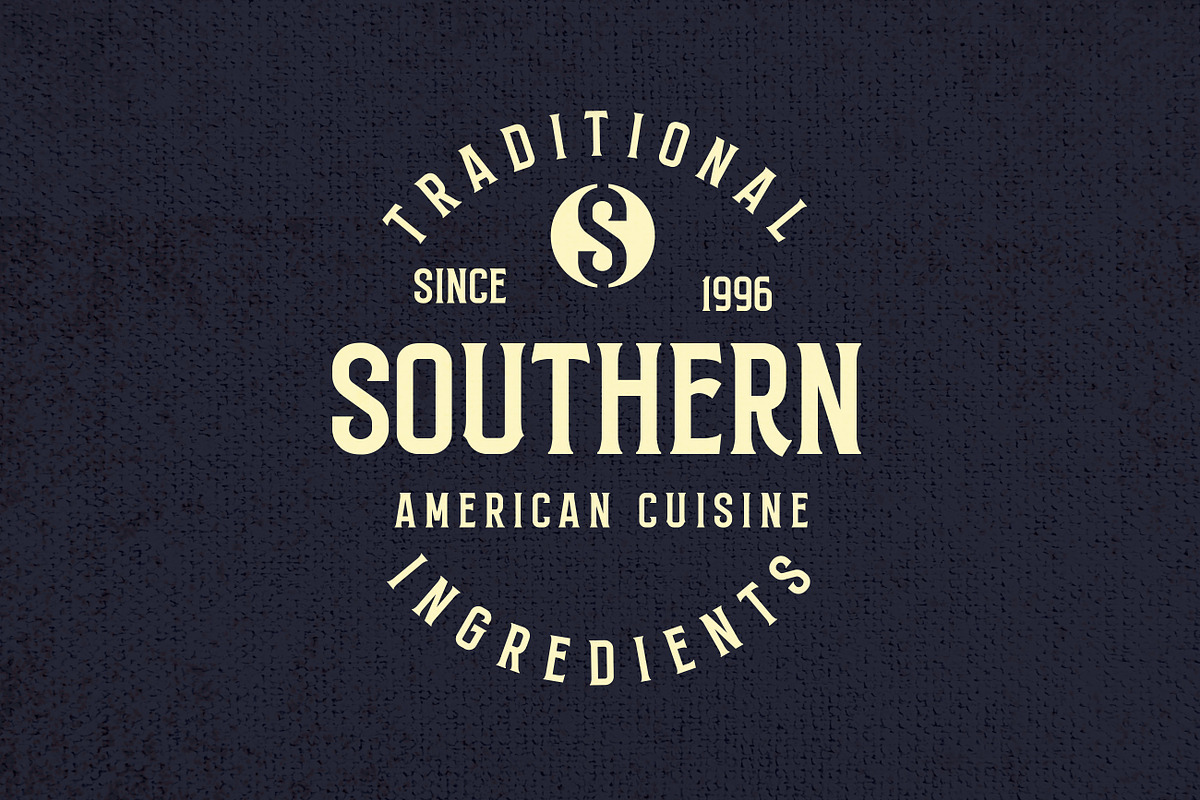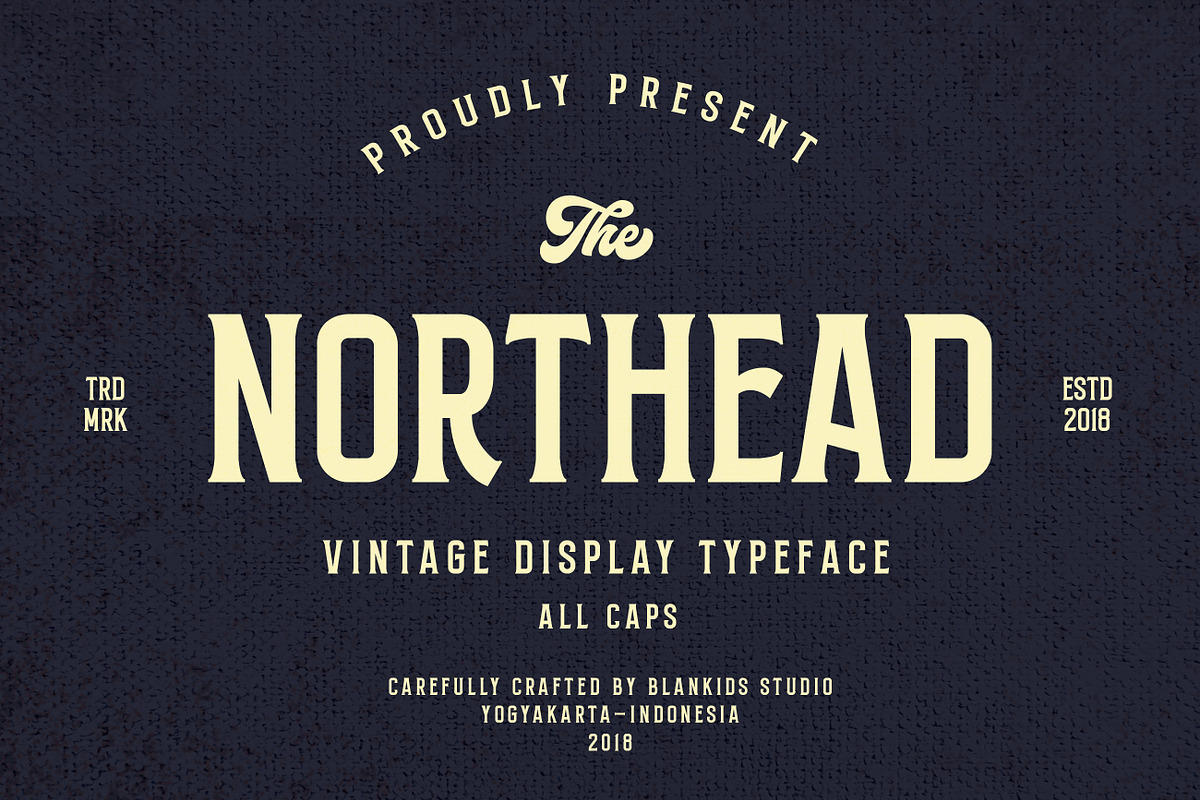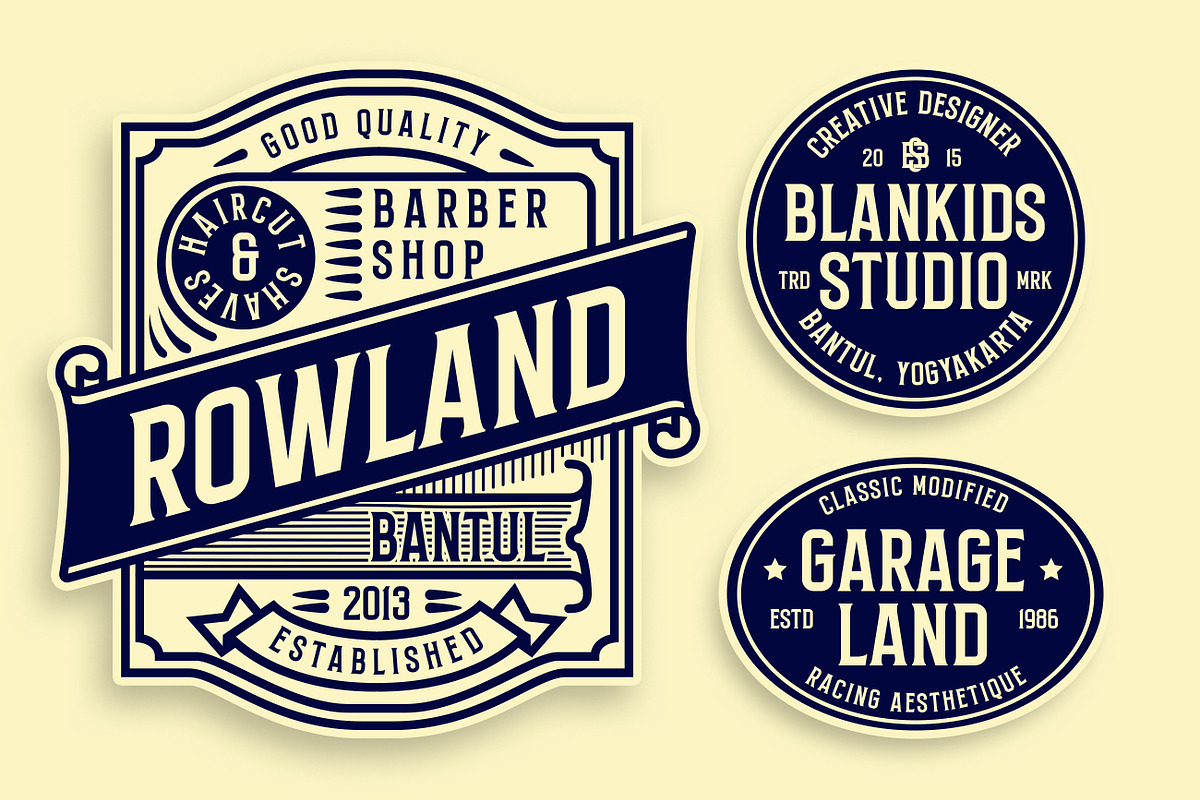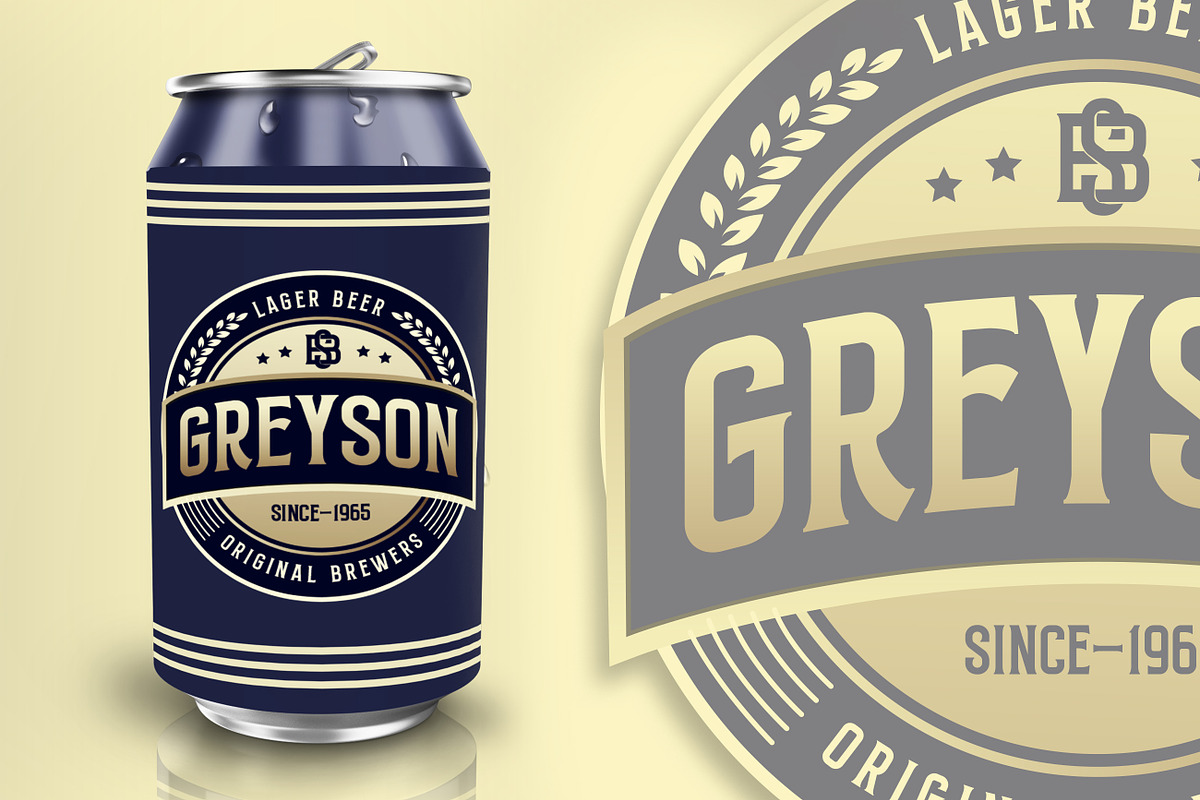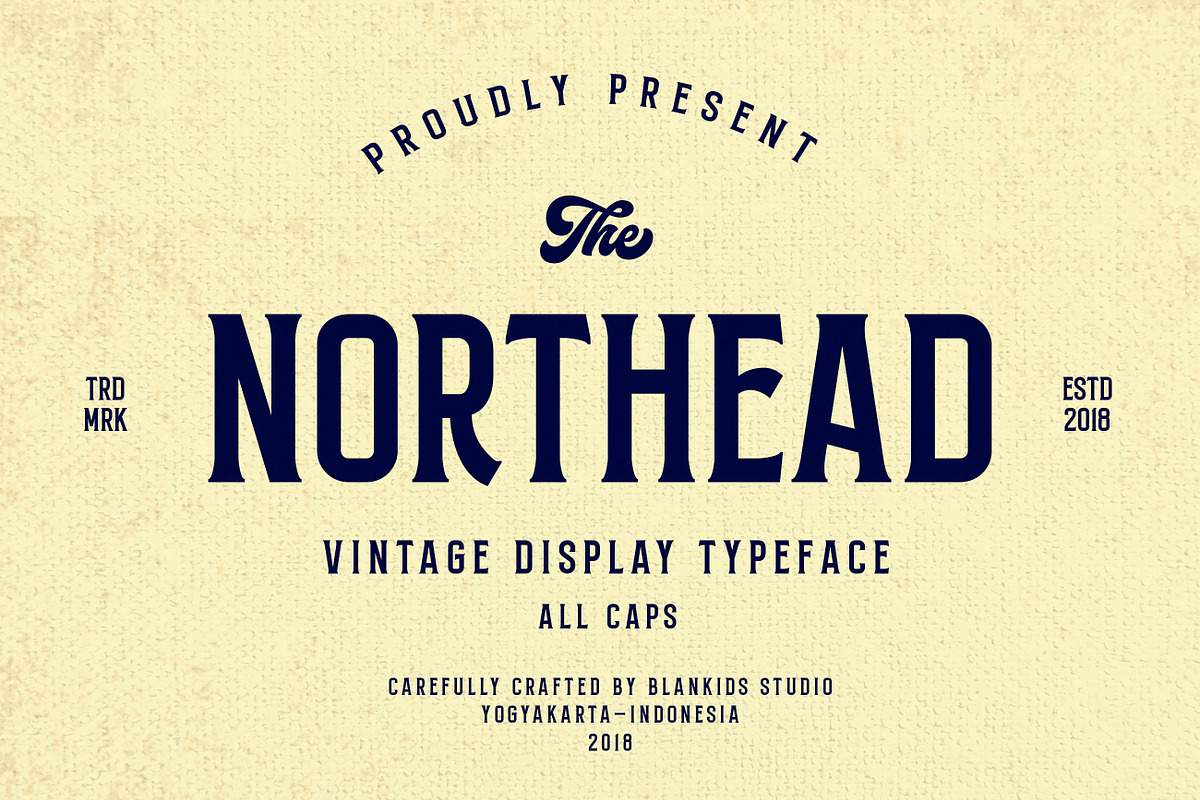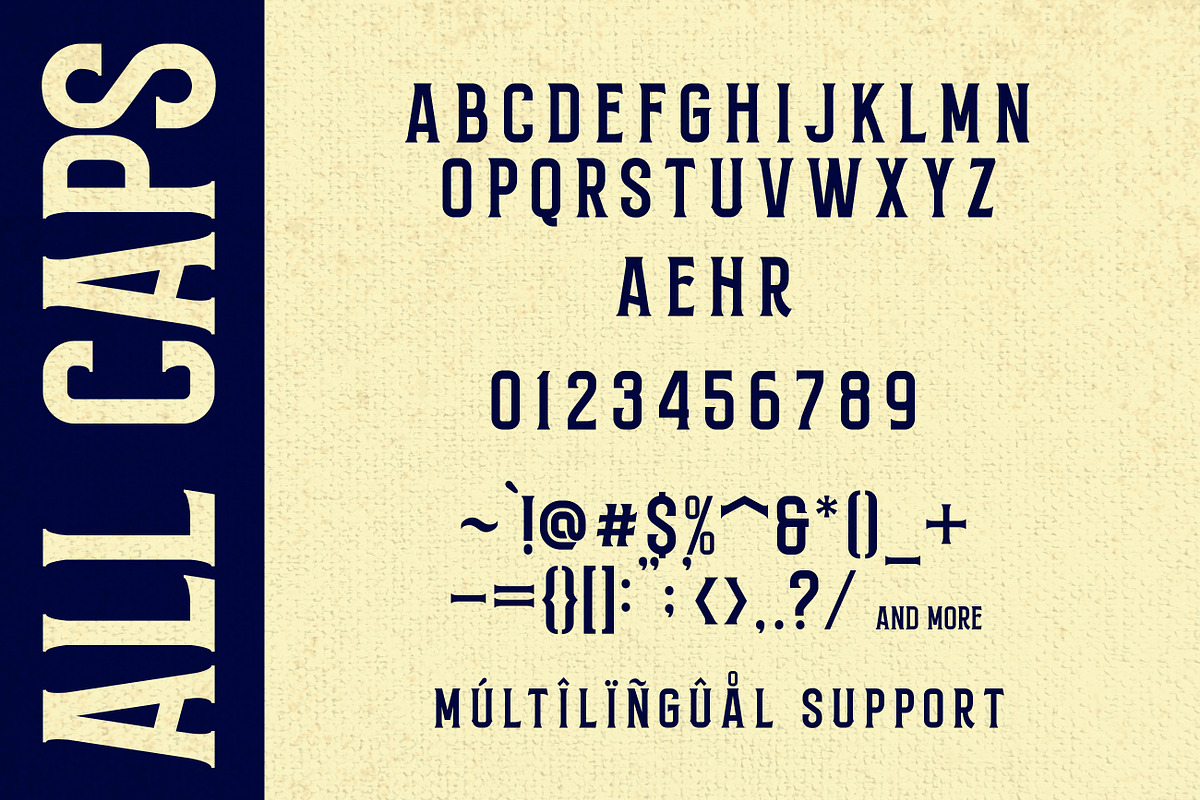
Northead Font
NORTHEAD VINTAGE DISPLY TYPEFACE
Introducing of our new product the name is Northead, the vintage serif font inspired by label beer and vintage signage, Northead is all caps font is good for branding, Packaging, poster, headline, book cover, Flyer, t-shirt design and any more.
ŽžŠŒšŸÀÁÂÃÄÅÆÇÈÉÊËÌÍÎÏÐÑÒÓÔÕÖØÙÚÛÜÝßàáâãäåæçèéêëìíîïðñòóôõöøùúûüýÿ